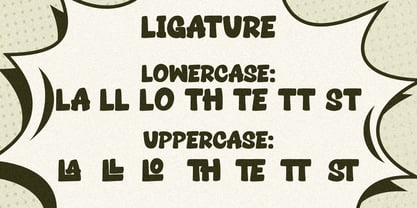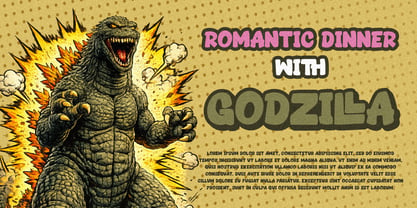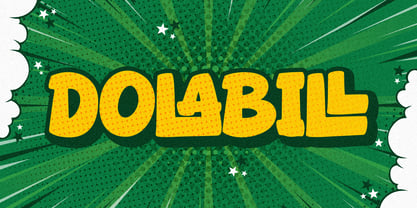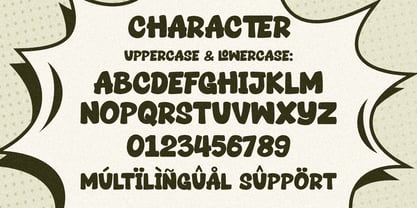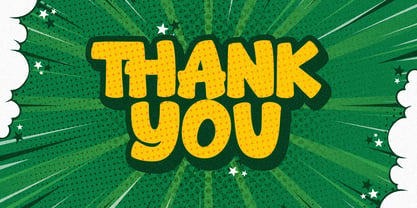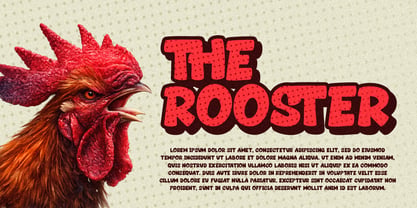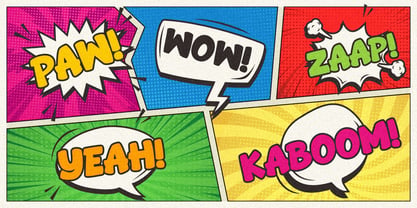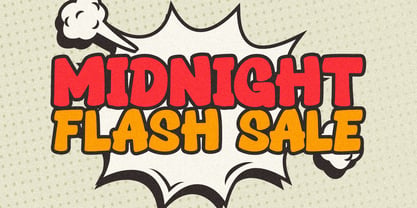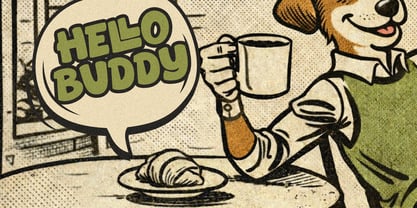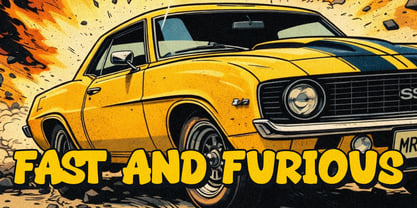
Dolabill
The Dolabill Font Family was designed by Brainy Javanika Putra and published by Monolimes. Dolabill contains 1 styles. More about this family
Dolabill is a bold comic-style display typeface with a strong, playful, and energetic presence. It features thick, chunky letterforms with rounded edges and a slightly inflated, bubble-like structure that enhances readability and visual impact. The font is highly influenced by pop art and comic book aesthetics, often paired with halftone textures, vibrant colors, and heavy outlines. Dolabill is perfect for posters, kids’ designs, comic titles, merchandise, packaging, and attention-grabbing headlines, delivering a fun and dynamic visual tone.